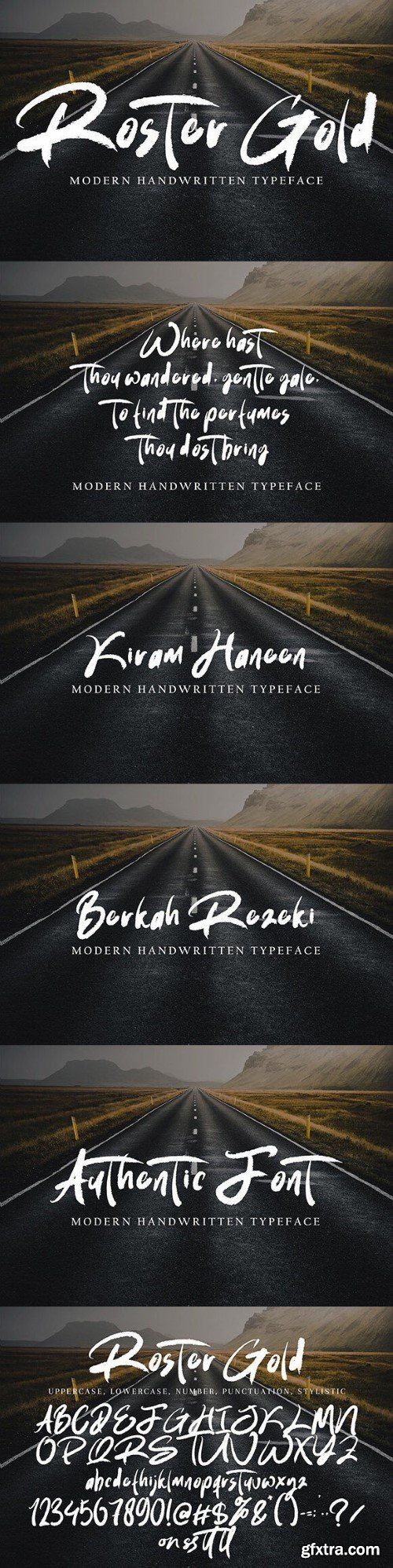
罗斯特金字体
Roster Gold with new style, this font will perfect for many different project ex: quotes, logo, blog header, poster, banding, letter, invitation, stationery, etc…